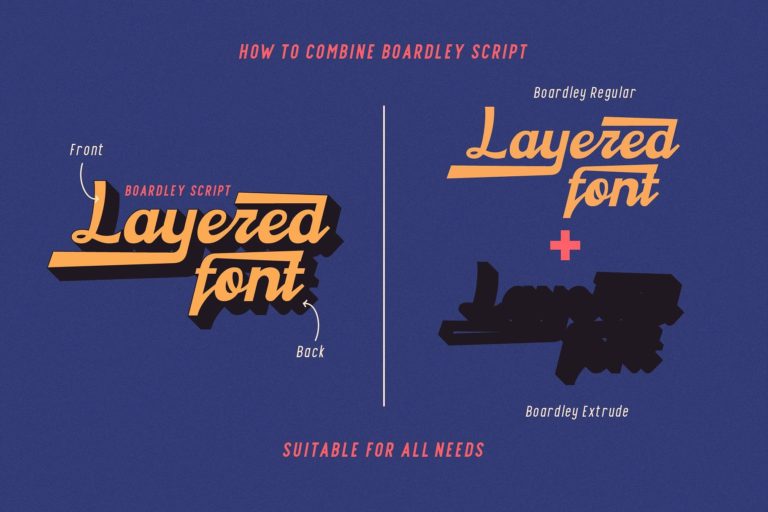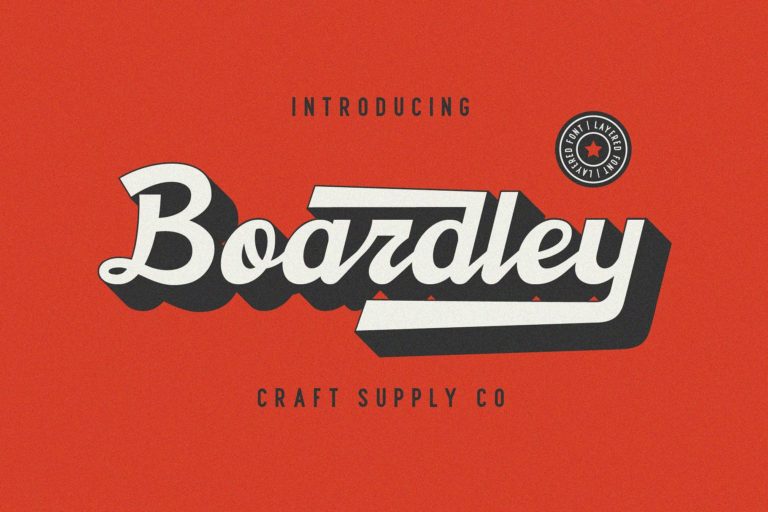
Boardley Script
Boardley Script Layered Font
Boardley Script is a script-style display font in two layers, Boardley Script was the result of an exploration of mid-century American and European bold script lettering for advertising. is an attractive contemporary typeface drawn from scratch with brand-new, more vigorous detailing — and layerable variations for chromatic use.